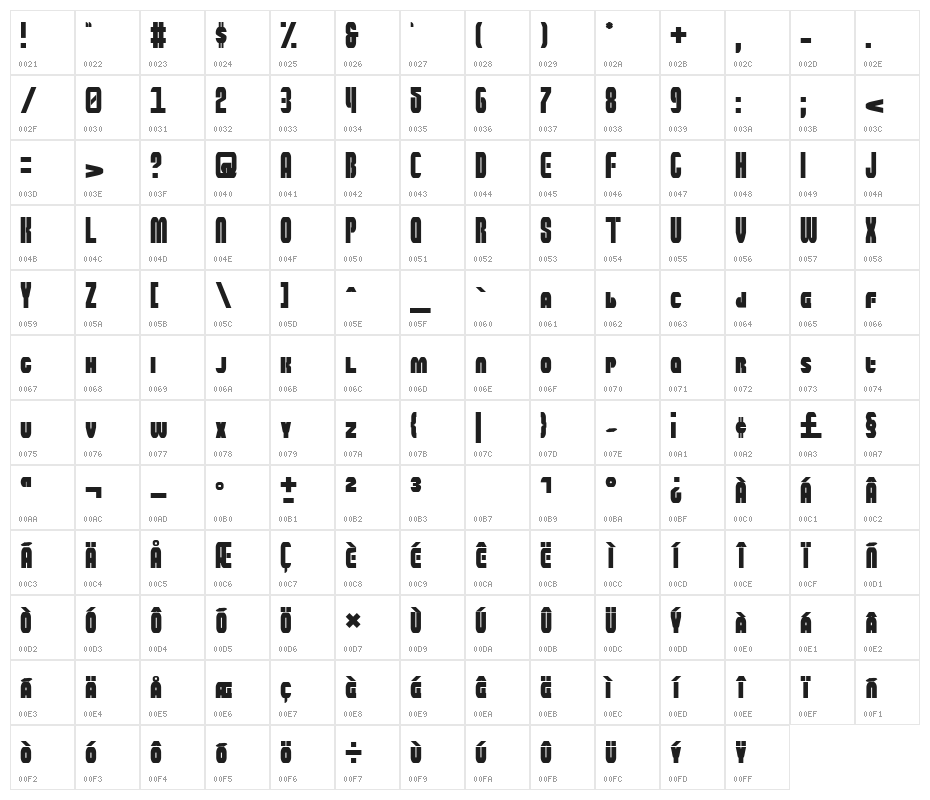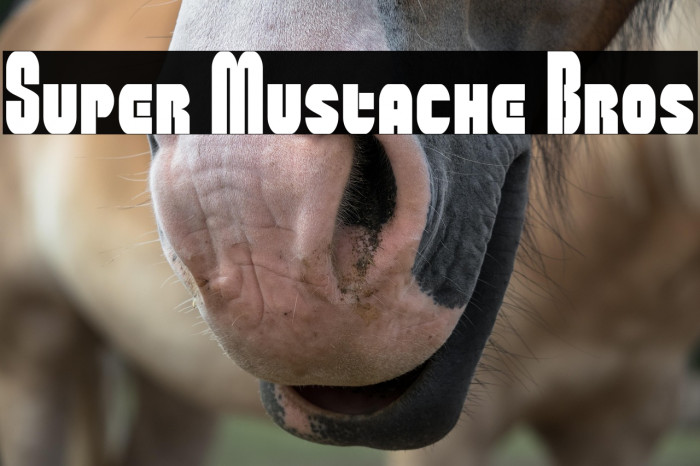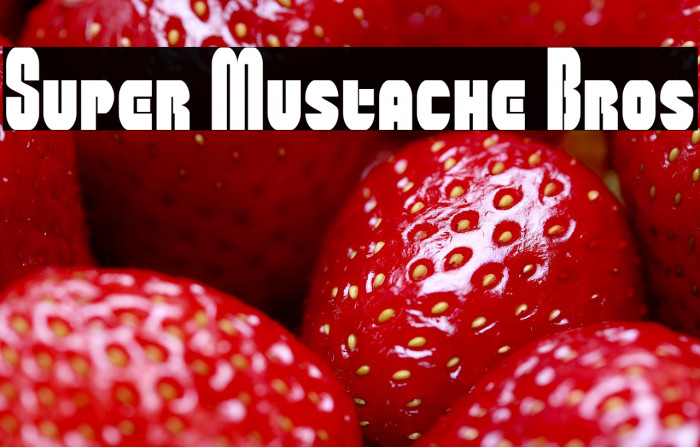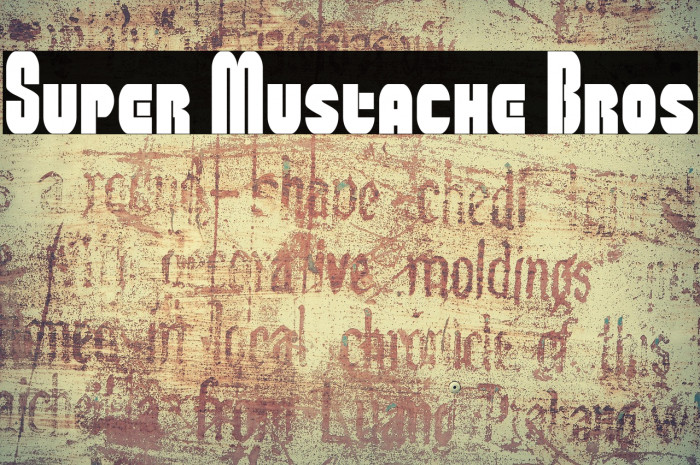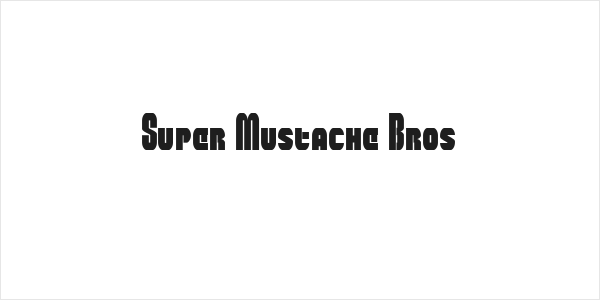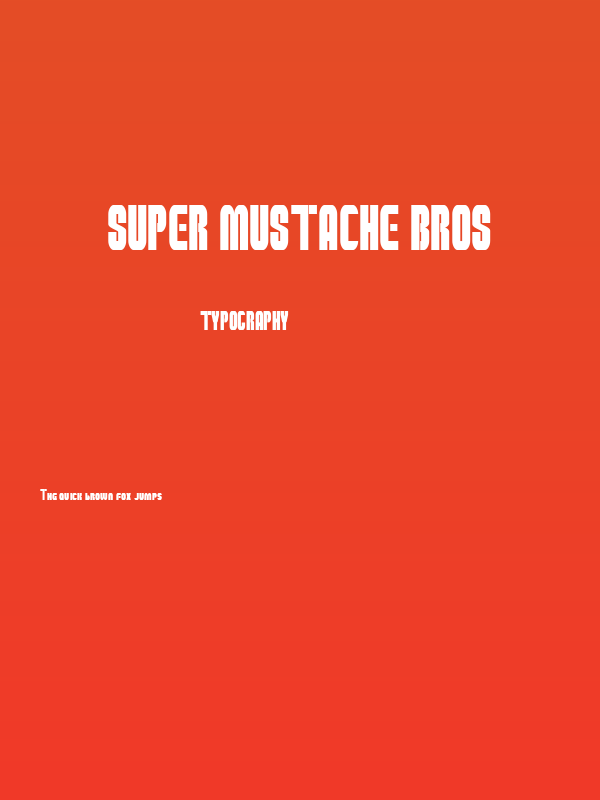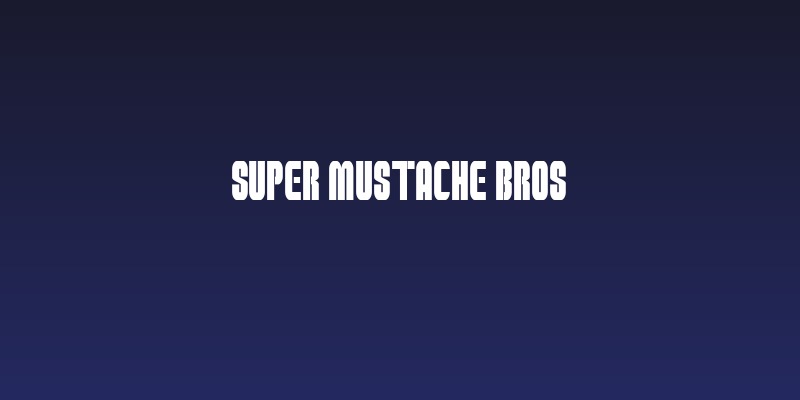
Super Mustache Bros Font
Super Mustache Bros Description
This font features a bold and impactful design with a strong presence. The characters are blocky and geometric, with a distinct stencil-like appearance. The uppercase and lowercase letters maintain a consistent width, contributing to a uniform and cohesive look. The numbers and special characters follow the same bold style, ensuring readability and visual harmony. The font's design is reminiscent of retro and arcade aesthetics, making it ideal for projects that require a nostalgic or playful touch.
| Overall Style | Retro, Playful |
| Proposed Projects | Perfect for video game titles, retro-themed posters, branding for entertainment products, and any project needing a playful, nostalgic vibe. |